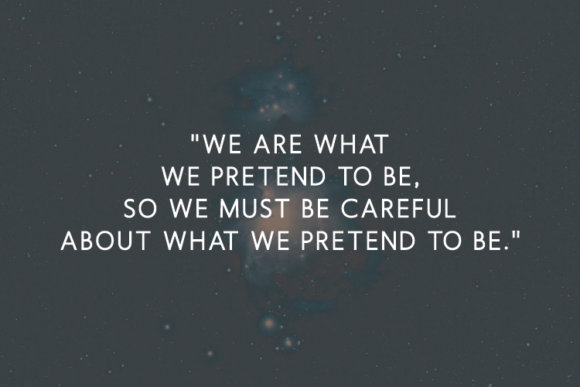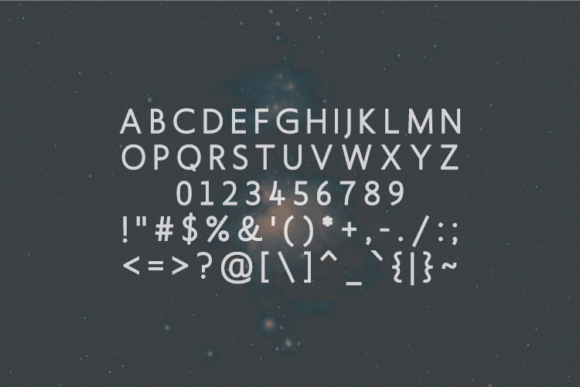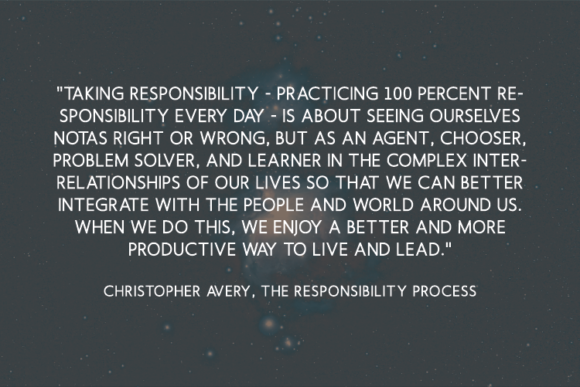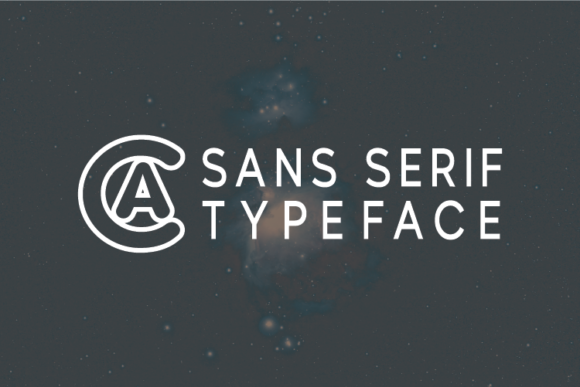
Introduction to Kretless Font
Kretless is a modern and classy sans serif typeface.
It is extremely versatile, perfect for logos, weddings, invitations, quotes, advertisements, print, magazines, and more .
Key Features of Kretless Font